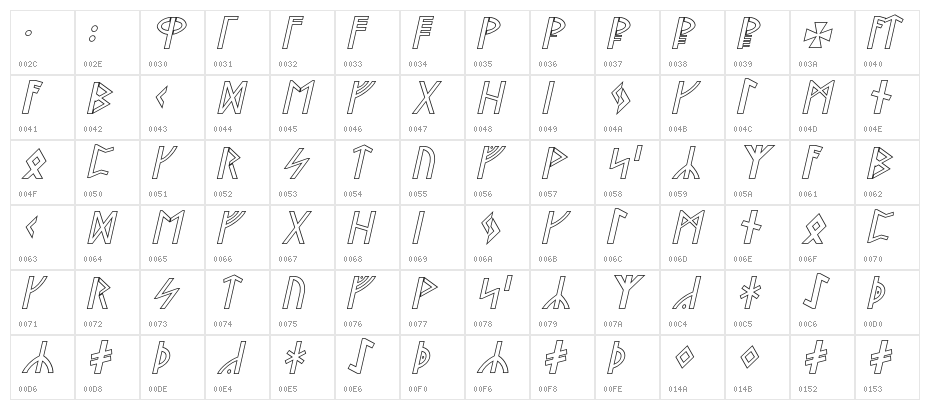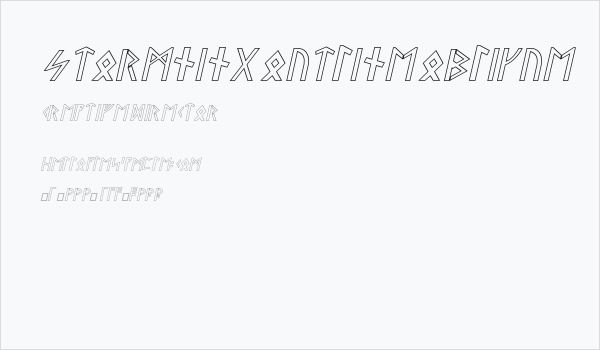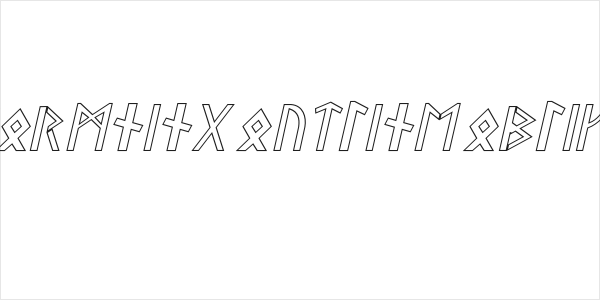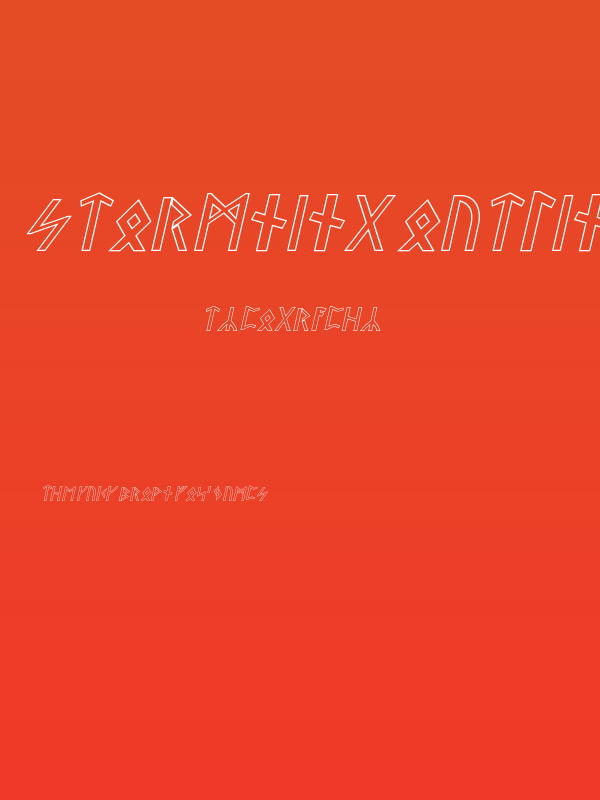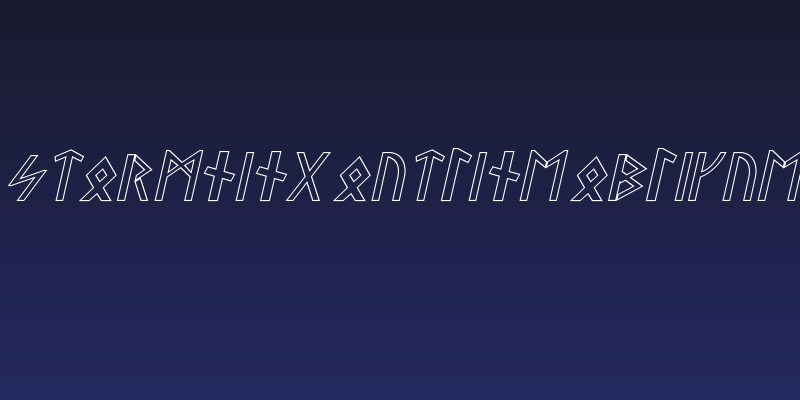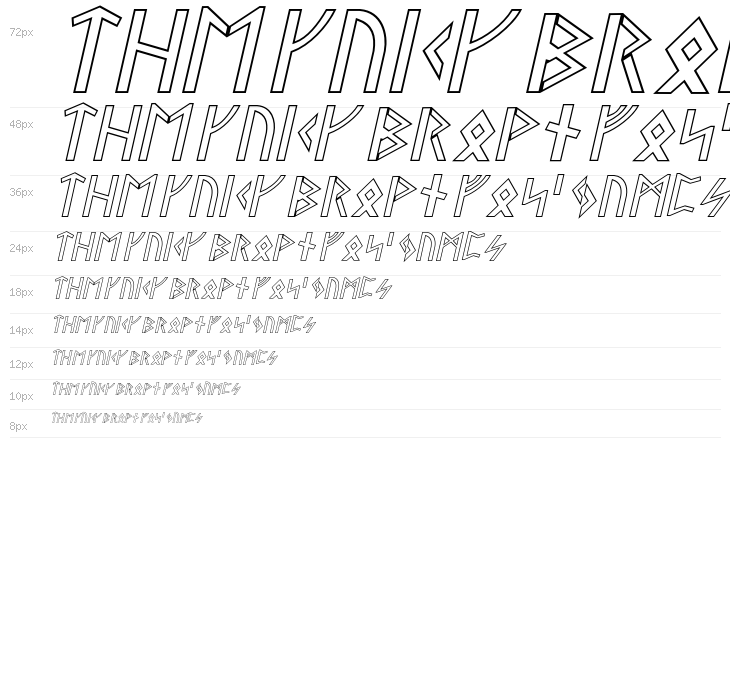
Stormning Outline Oblique Font
Stormning Outline Oblique Description
This font features a unique, angular design with an outline style that gives it a striking appearance. The characters are oblique, adding a sense of motion and dynamism. Each letter is crafted with sharp edges and geometric shapes, creating a futuristic and bold look. The uppercase and lowercase letters maintain a consistent style, with the numerals and special characters following suit. The font's outline nature allows for creative layering and color usage, making it versatile for various design applications.
| Proposed Projects | Ideal for sci-fi themed projects, video game titles, posters, and branding that requires a modern and edgy look. |